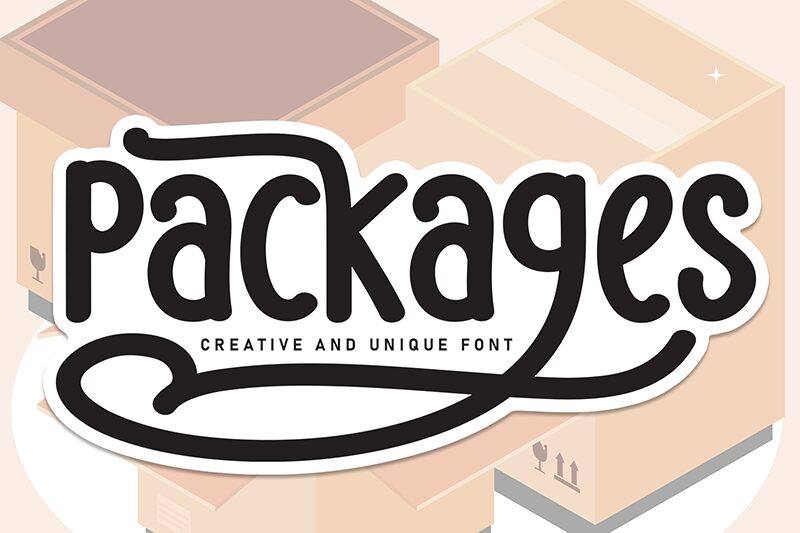
Packages
Packages font is a retro-inspired free handwritten font with a casual and whimsical feel by designer Scratchones. Its condensed width, rounded lines, and cheerful shapes work together in an eye-pleasing manner with legibility as a priority.
Possible use cases include poster designs, logo designs, vintage book cover designs and layouts, brochure covers, duo packaging ideas for different products such as goods packaging either normal goods or food related items.